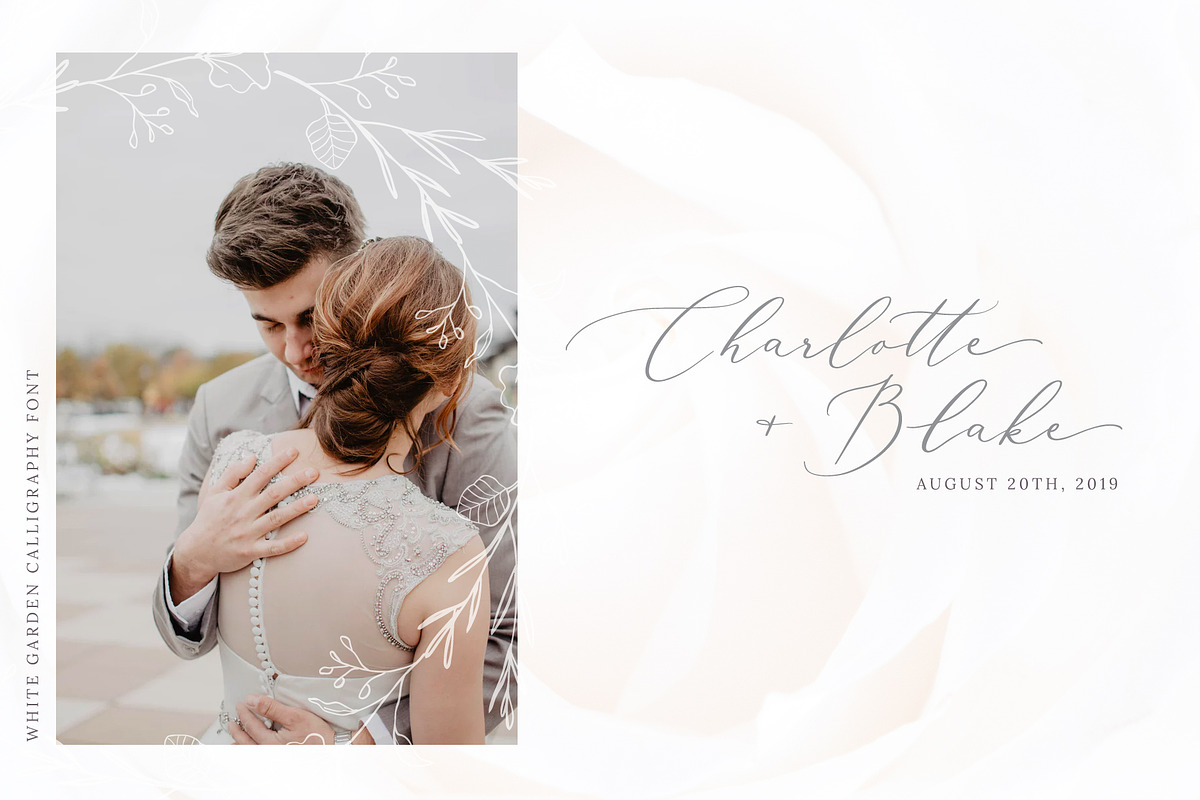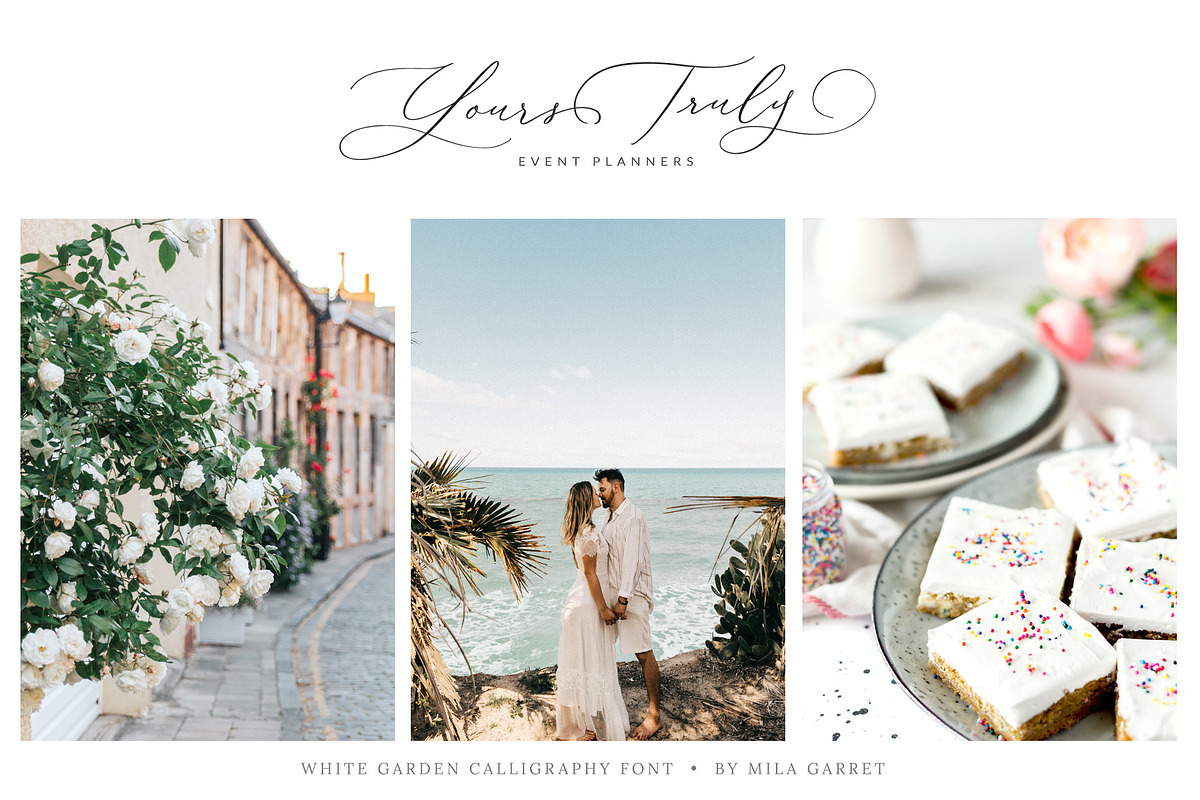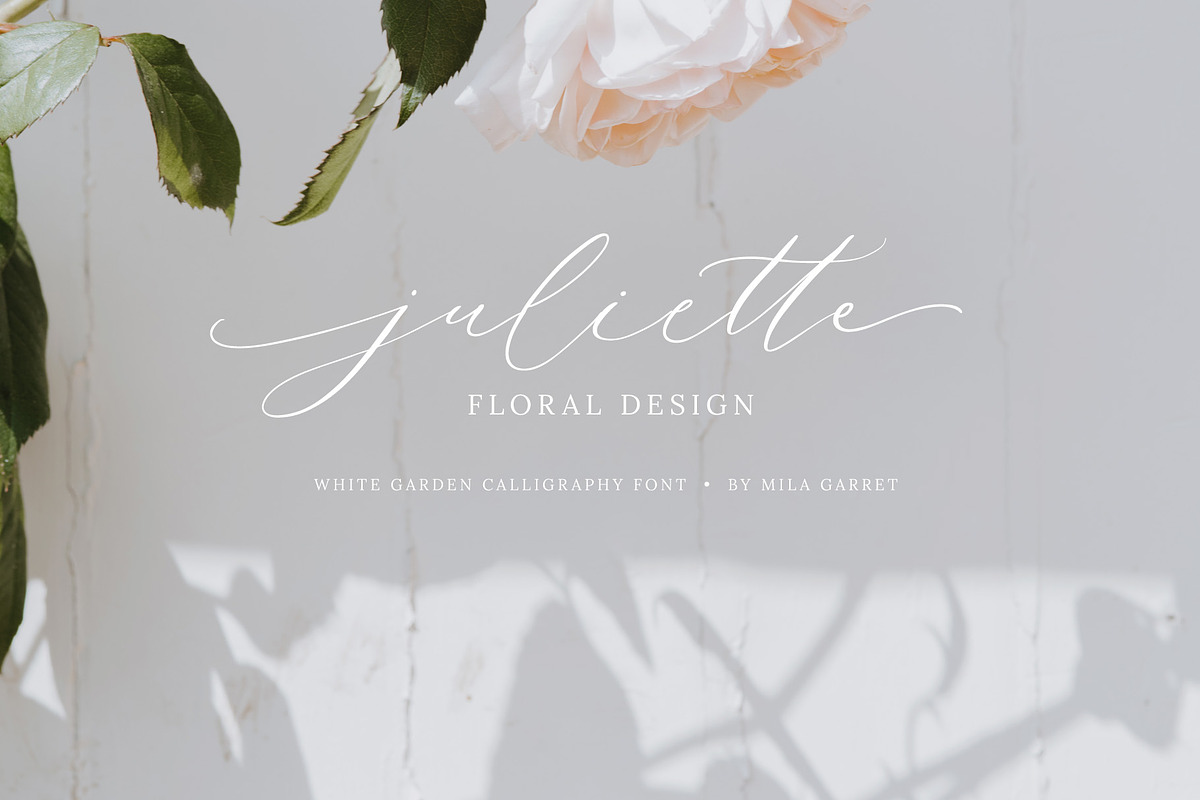
White Garden is a new beautiful calligraphy font. White Garden is perfect for elegant logos, upscale packaging, wedding stationery, websites, and any other projects requiring a handwritten and luxurious touch. A wide range of swashes and alternates are included so that you can give your logo or name a custom, hand-calligraphy look.